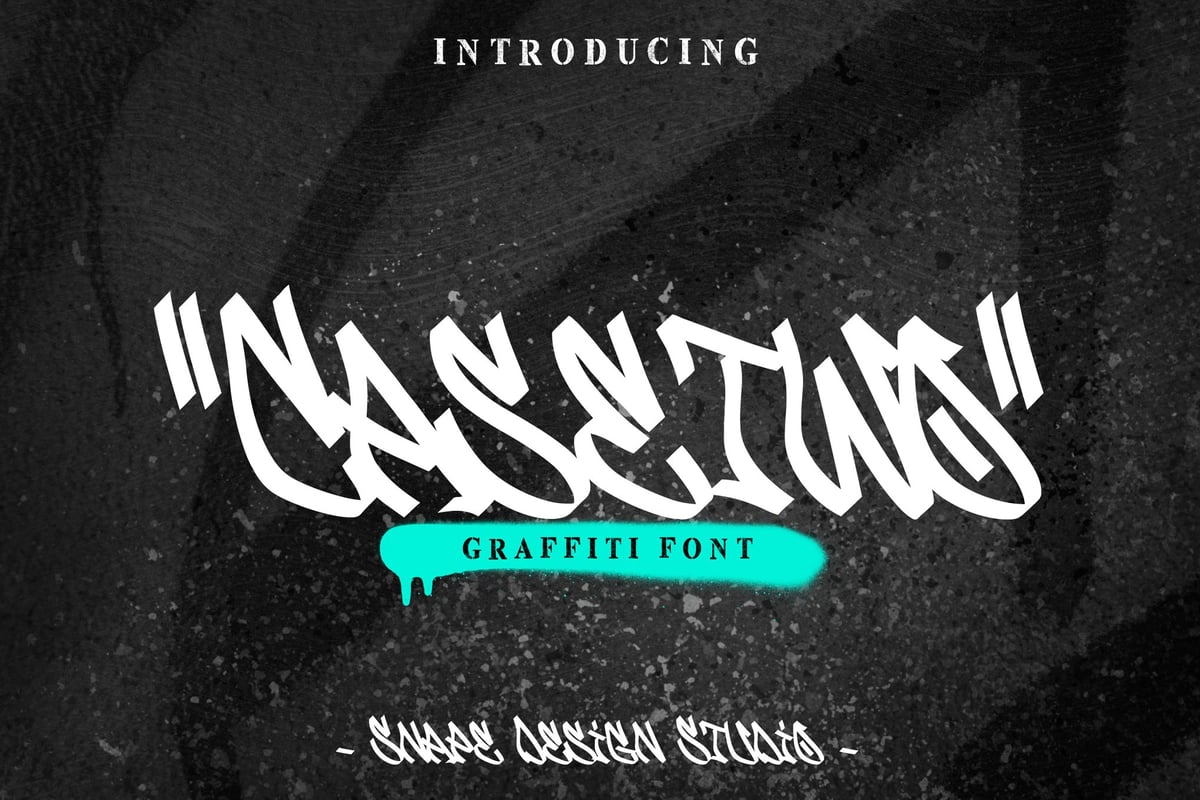
Casetwo - Graffiti Font
Bring authentic street art energy to your designs with this bold graffiti-inspired display font. CASETWO captures the raw essence of street art calligraphy and graffiti tag styles, making it the perfect choice for projects that need an urban edge. This versatile typeface works exceptionally well for movies, documentaries, films, logos, posters, games, book covers, headlines, titles, and countless other creative projects. Transform your creative concepts with this distinctive font and watch them ...